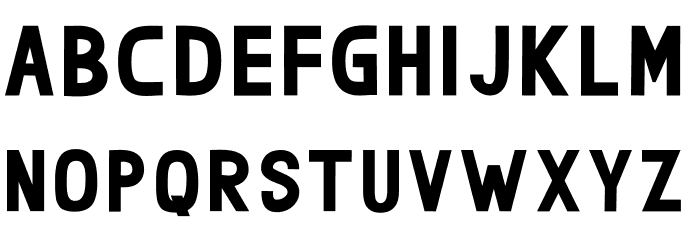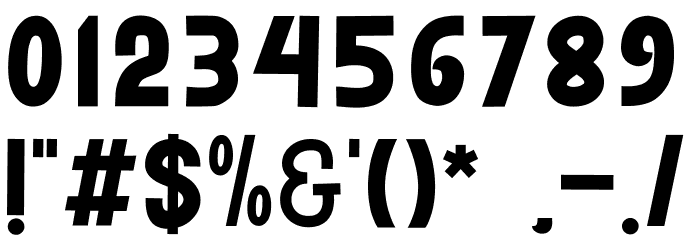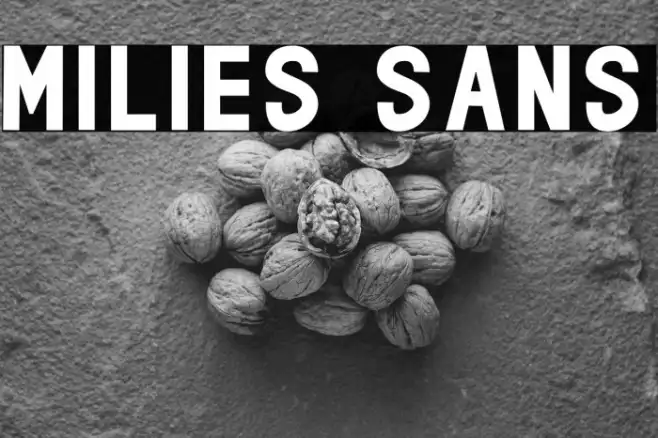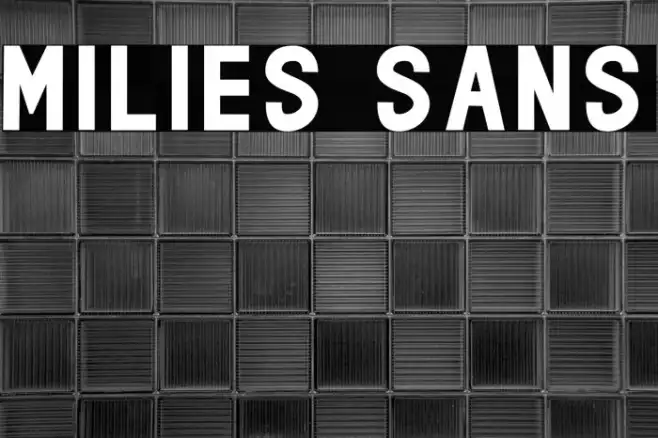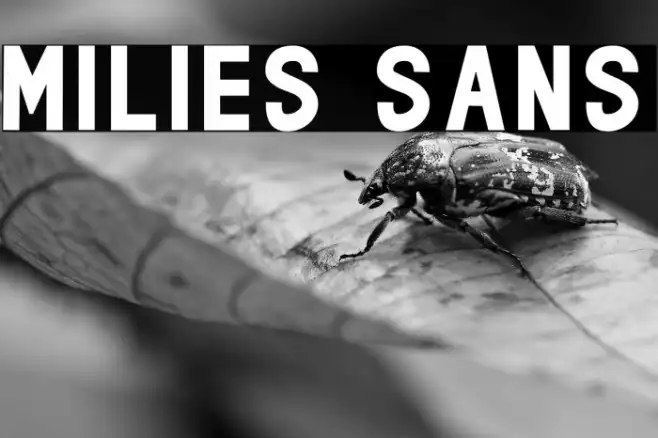
milies Sans Font
This font features bold, geometric letterforms with a strong presence, making it ideal for impactful design projects. The uppercase letters are uniform in height, with a consistent stroke width that conveys a sense of stability and modernity. The lowercase letters maintain the same boldness, ensuring readability and coherence across different text sizes. The numerals are clear and distinct, matching the overall bold aesthetic. Special characters are included, providing versatility for various design needs. The font's clean lines and lack of serifs contribute to its modern and professional appearance.
A bold, geometric sans-serif font with a modern and impactful style.
- Font: milies Sans
- Proposed Projects: Ideal for branding, advertising, headlines, and any project requiring a strong visual impact.
- Use Case: Headlines, Logos, Branding